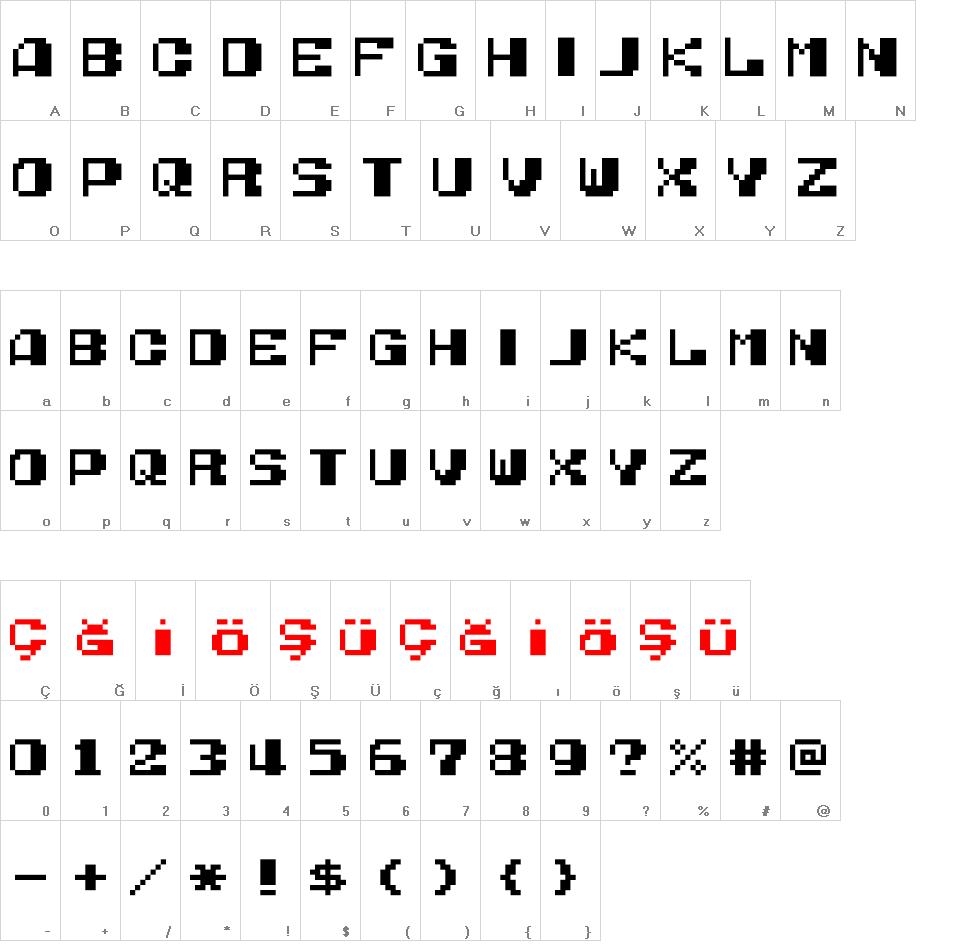
NES Open Tournament Golf font
Hole-in-one! This font is based on the primary text as seen in NES Open Tournament Golf on the NES, complete with unicodes, and characters for Latin, Greek, and Cyrillic!